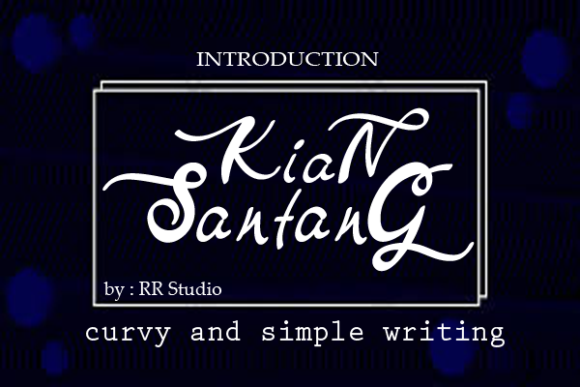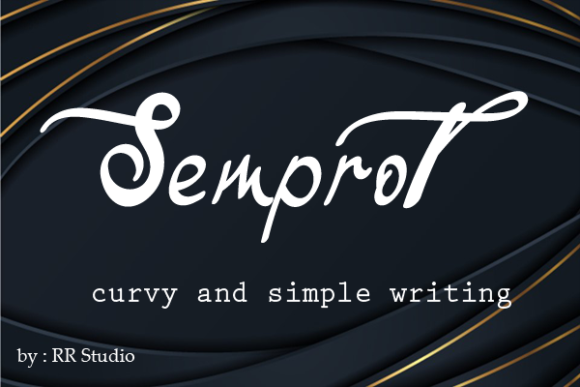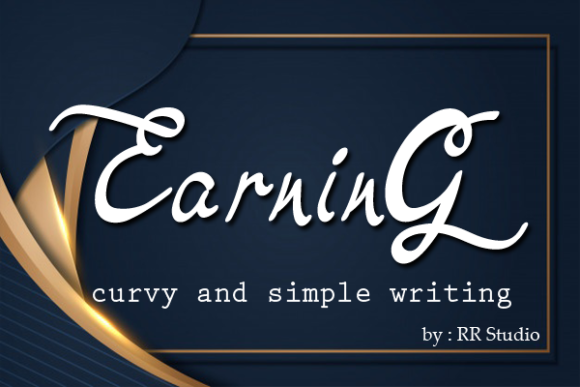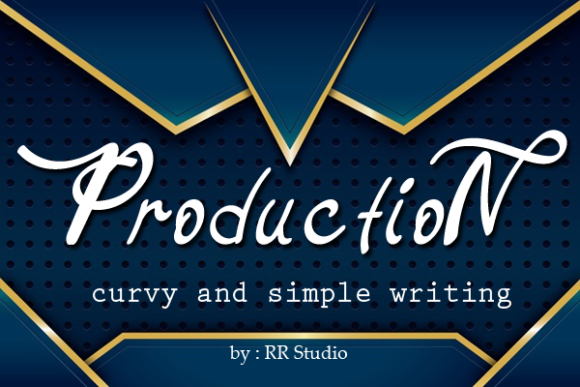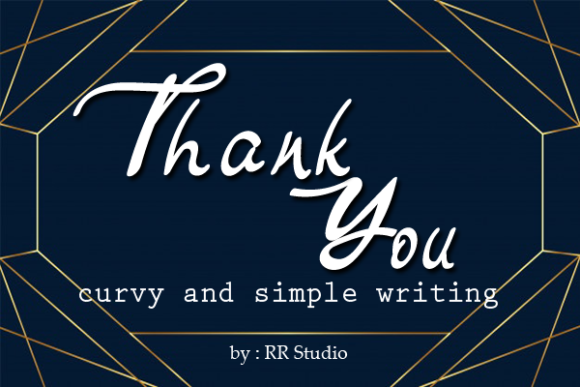
Kian Santang Font
About Kian Santang Font
Kian Santang is a stylish and incredibly elegant handwritten font. It looks stunning on wedding invitations, thank you cards, quotes, greeting cards, logos, business cards and every other design which needs a customized touch.